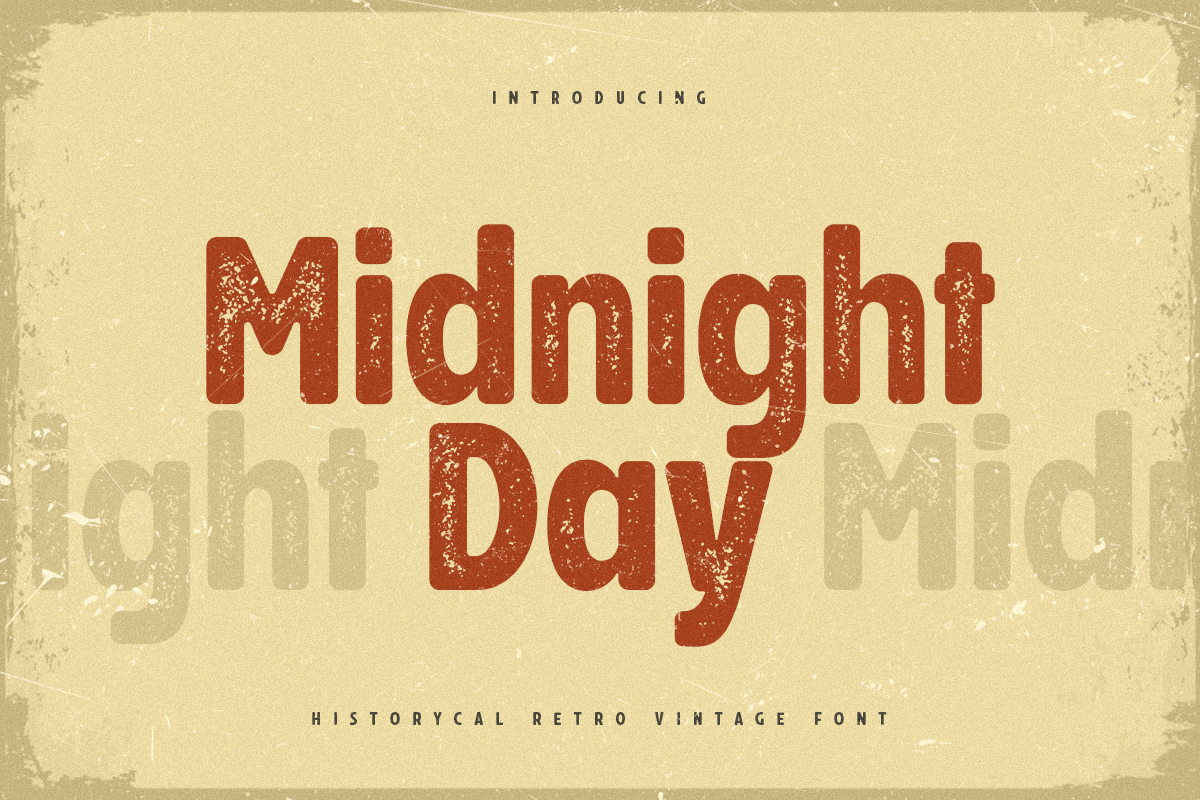
Midnight Day
-Historical Retro Vintage Font
Midnight Day is a Historical Retro Vintage Font that's perfect for Headline, Title or Branding. This font specially crafted for your design projects such as Poster, Sign, Film, Movie, Flyer, Historical Sign and so many more with easy to use but standing out results are so amazing.
Enjoy to Design any your needs with standing out, unique, and authentic feels.